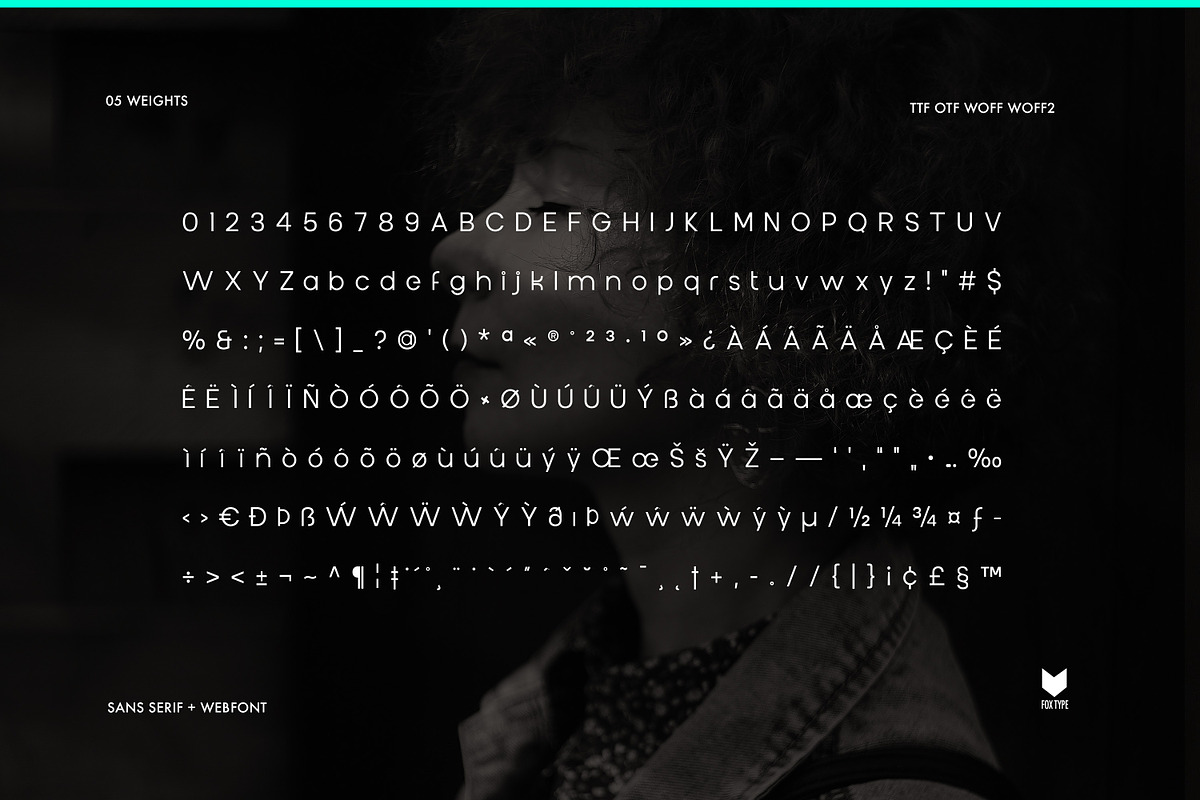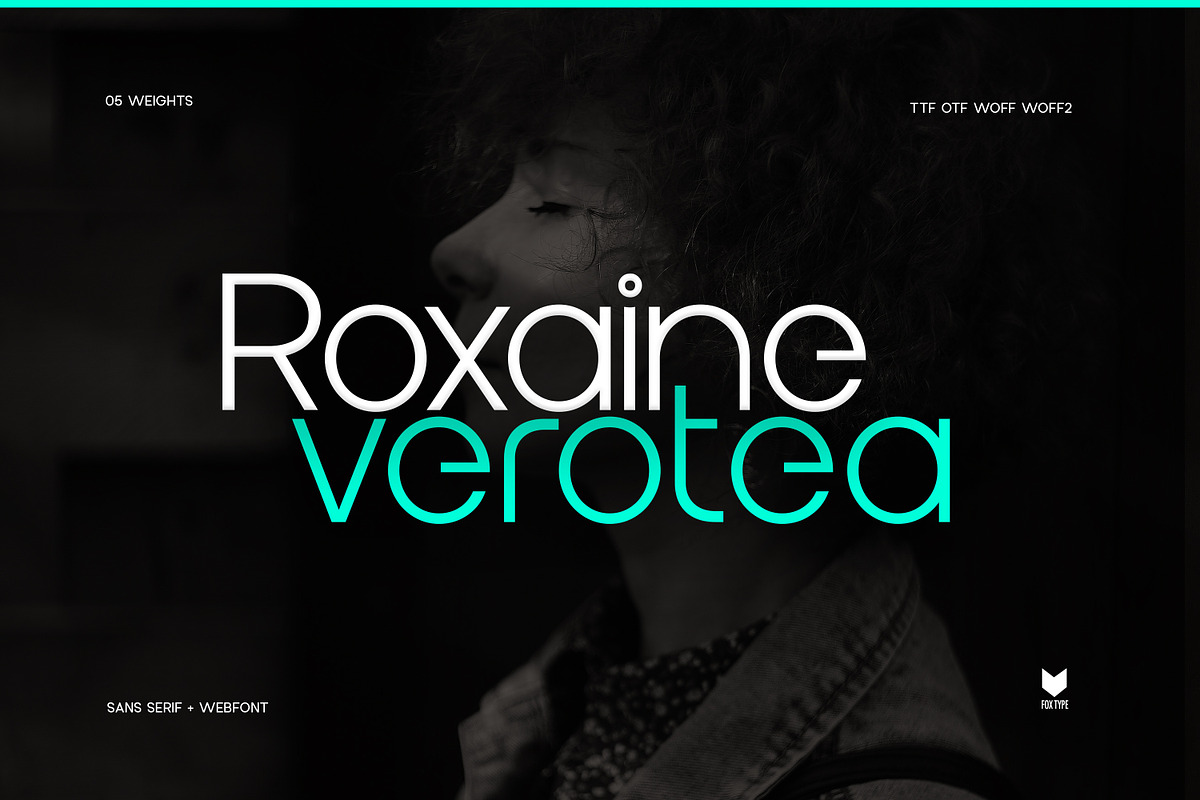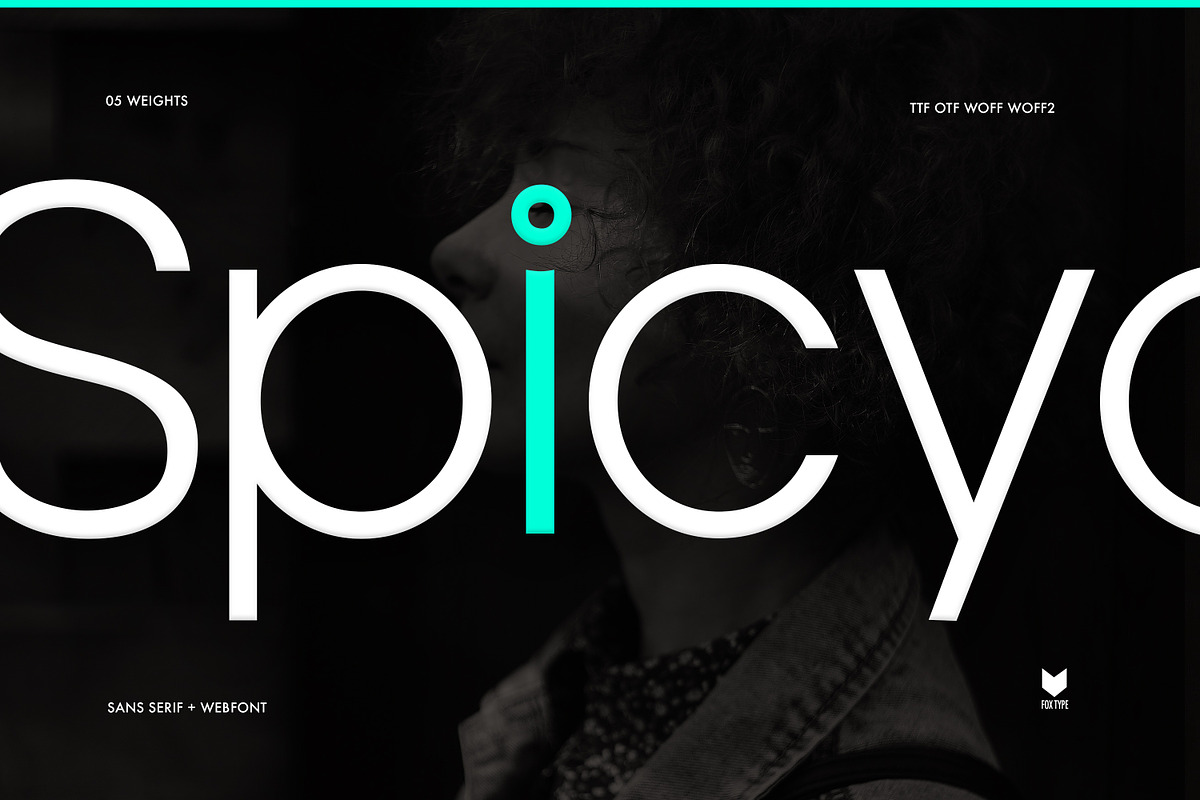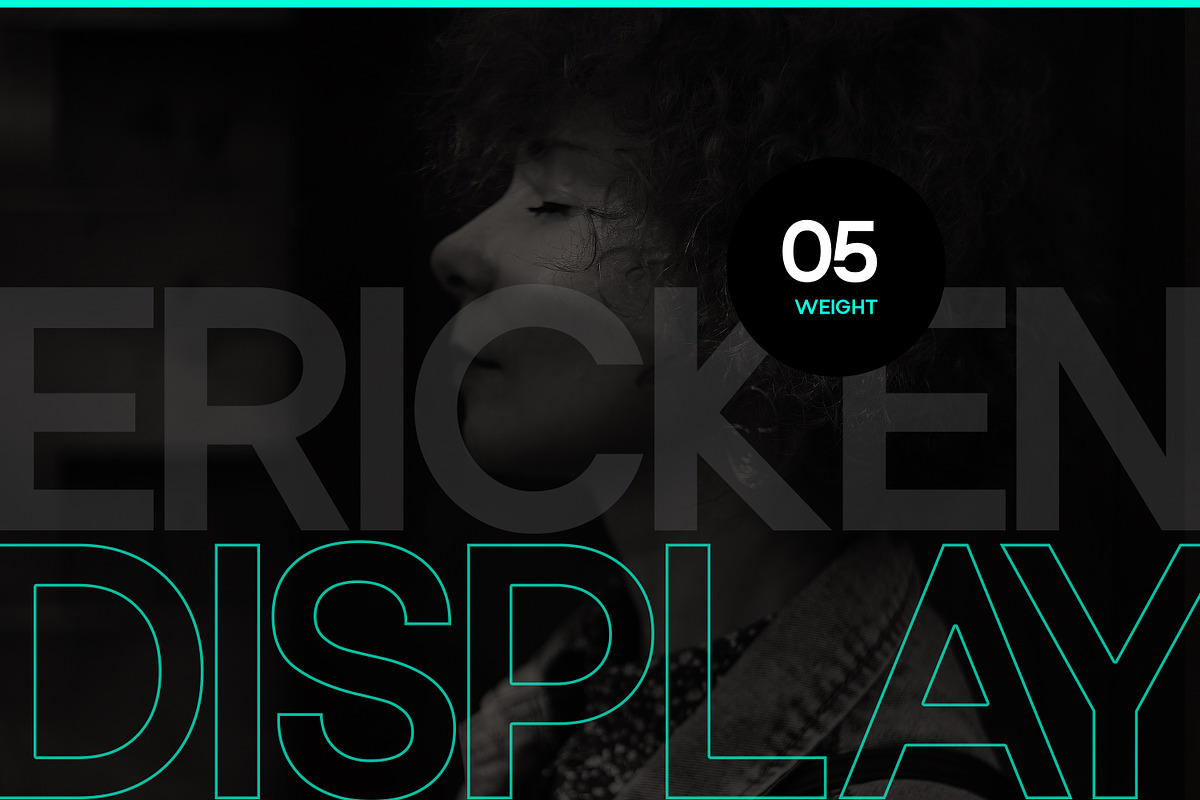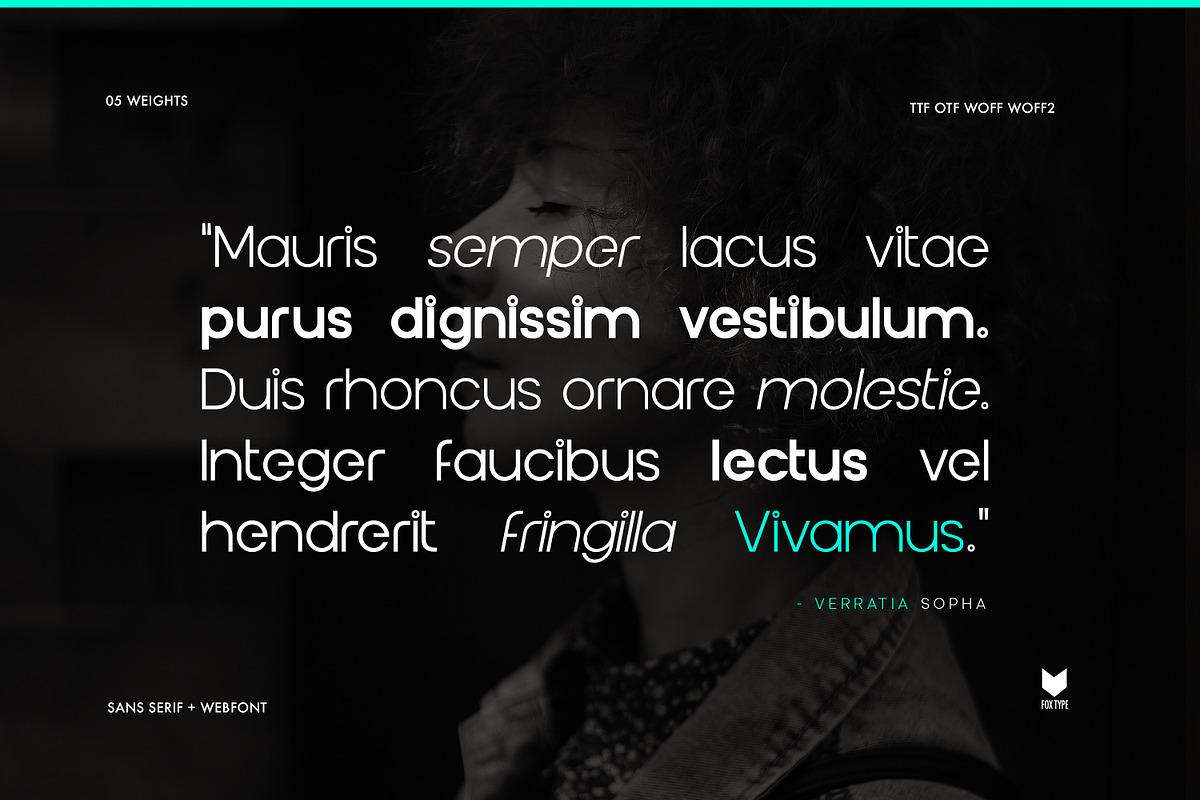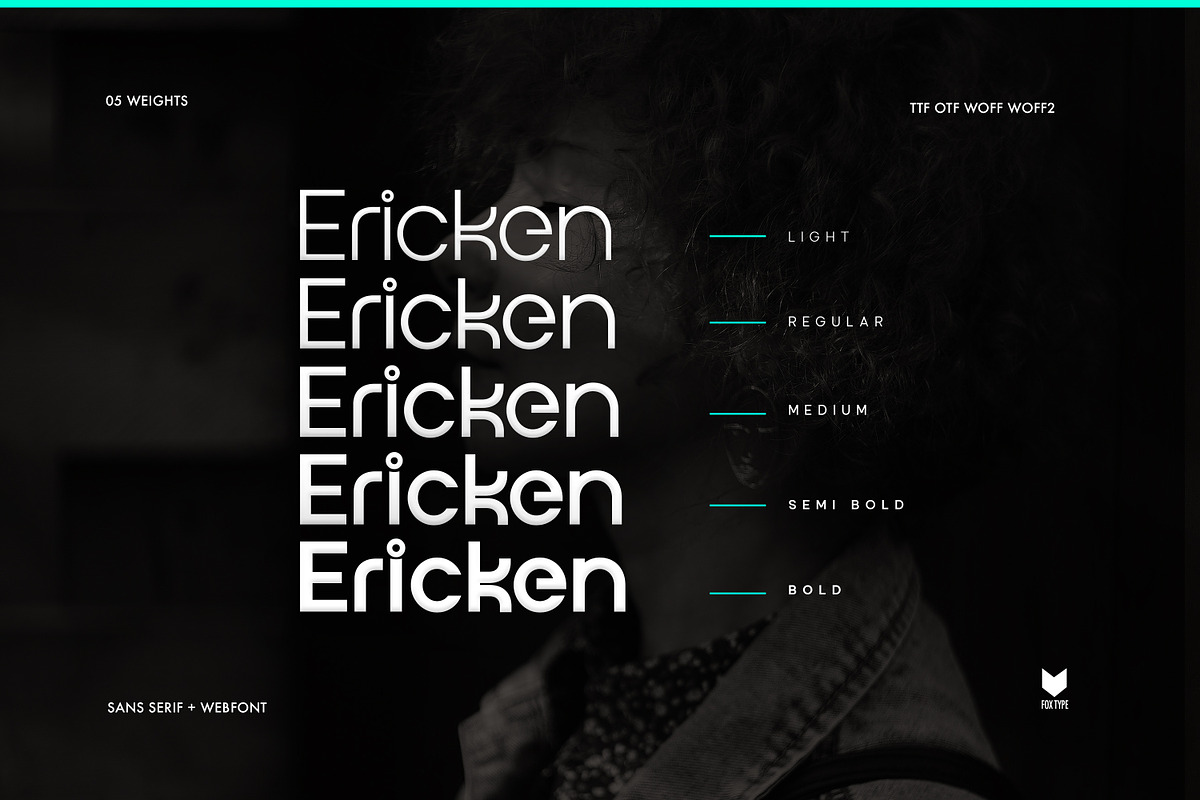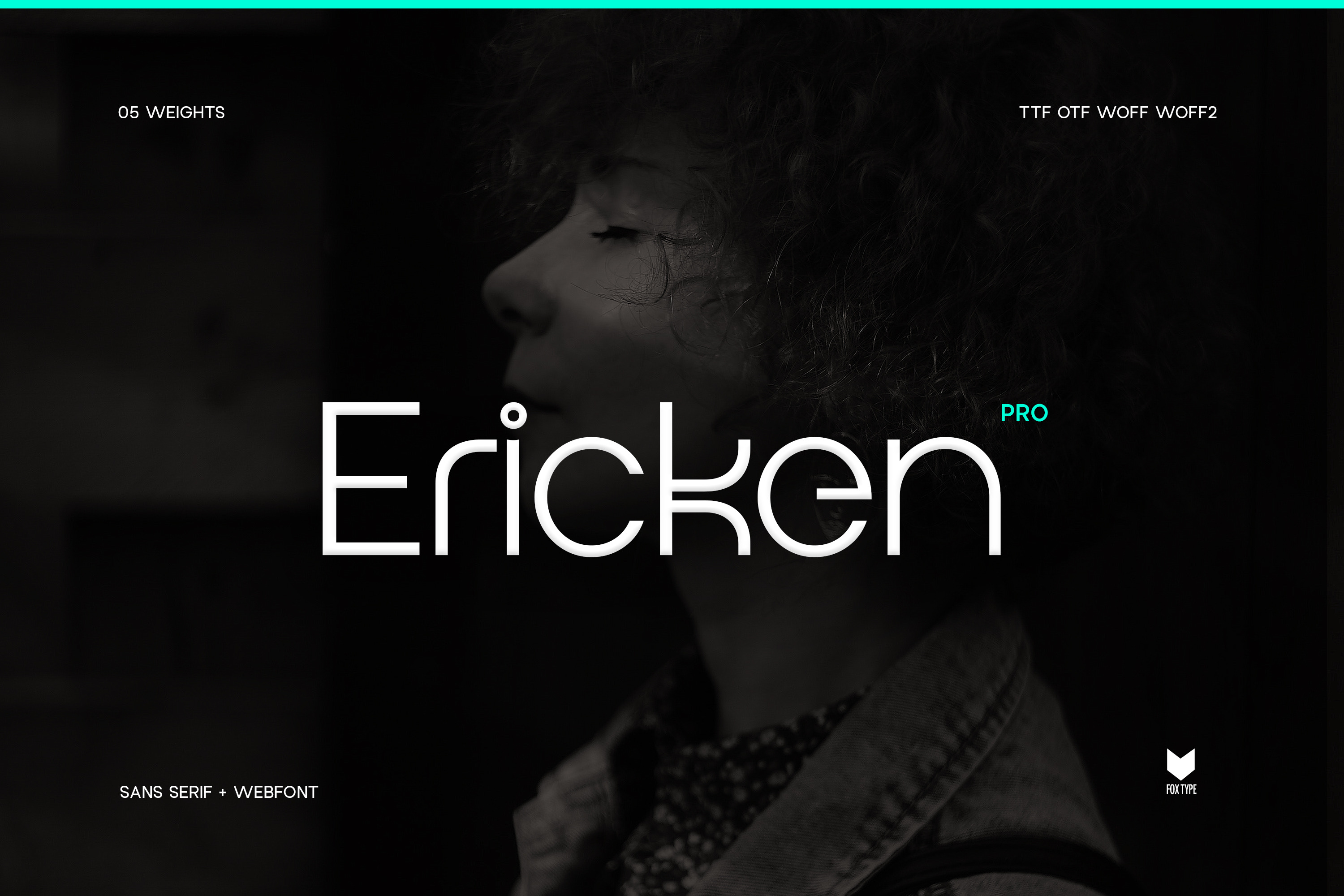
Ericken Display Typeface
Ericken pro is a Unique Modern Elegant Typeface with Web-fonts. It's a very versatile font that works great in large and small sizes. Ericken would perfect for branding, logos, headlines, Captions. or simply as a stylish text overlay to any background image.